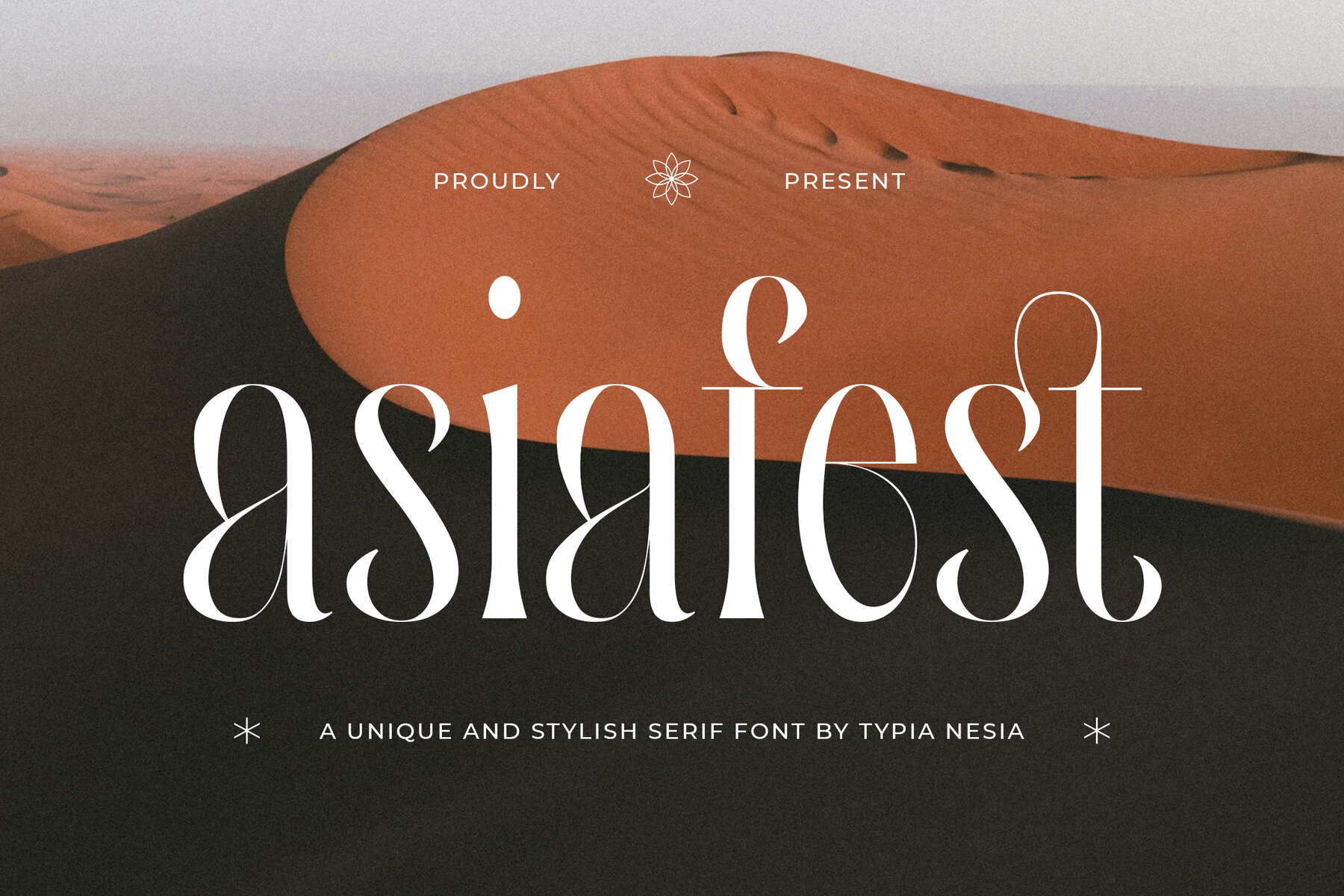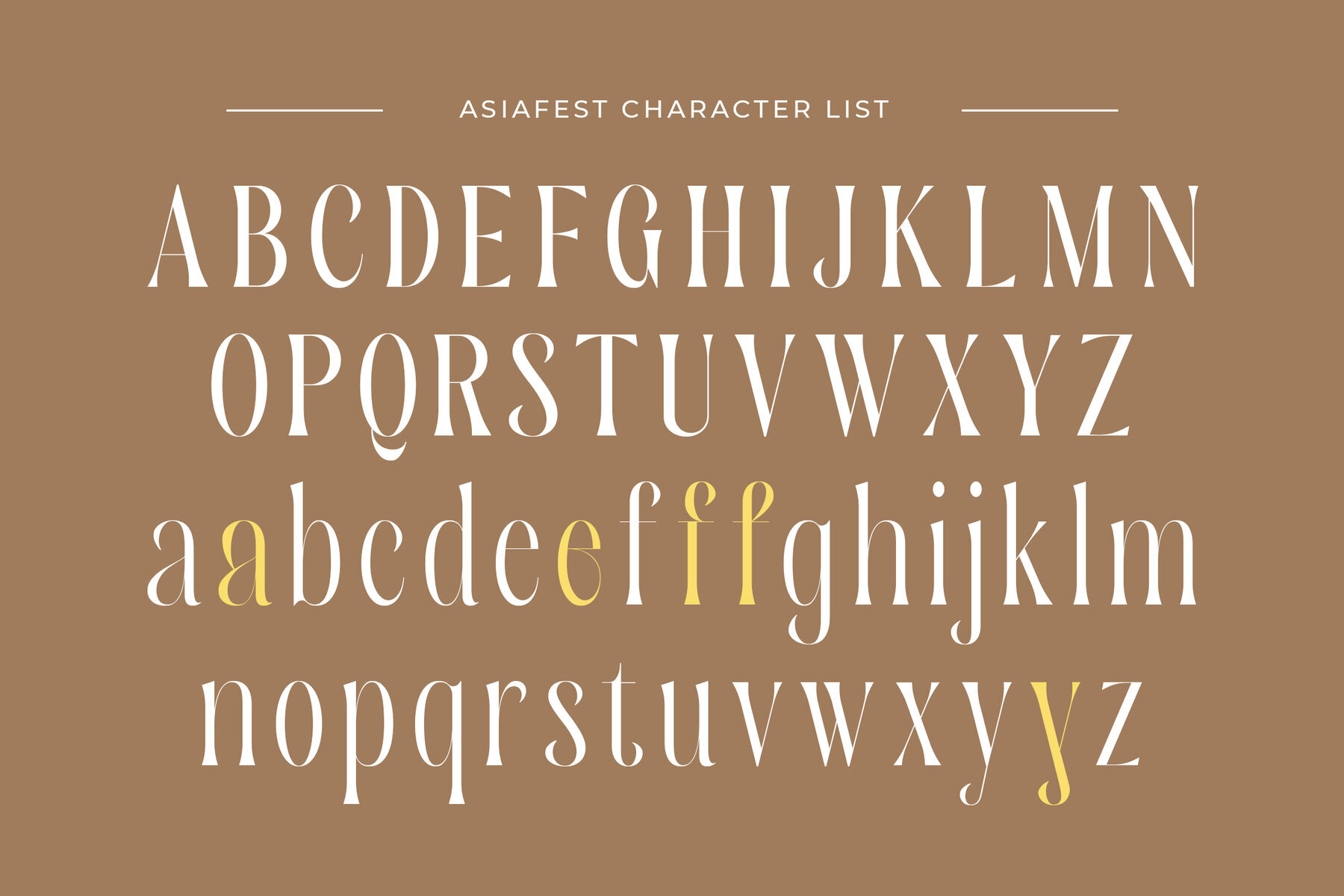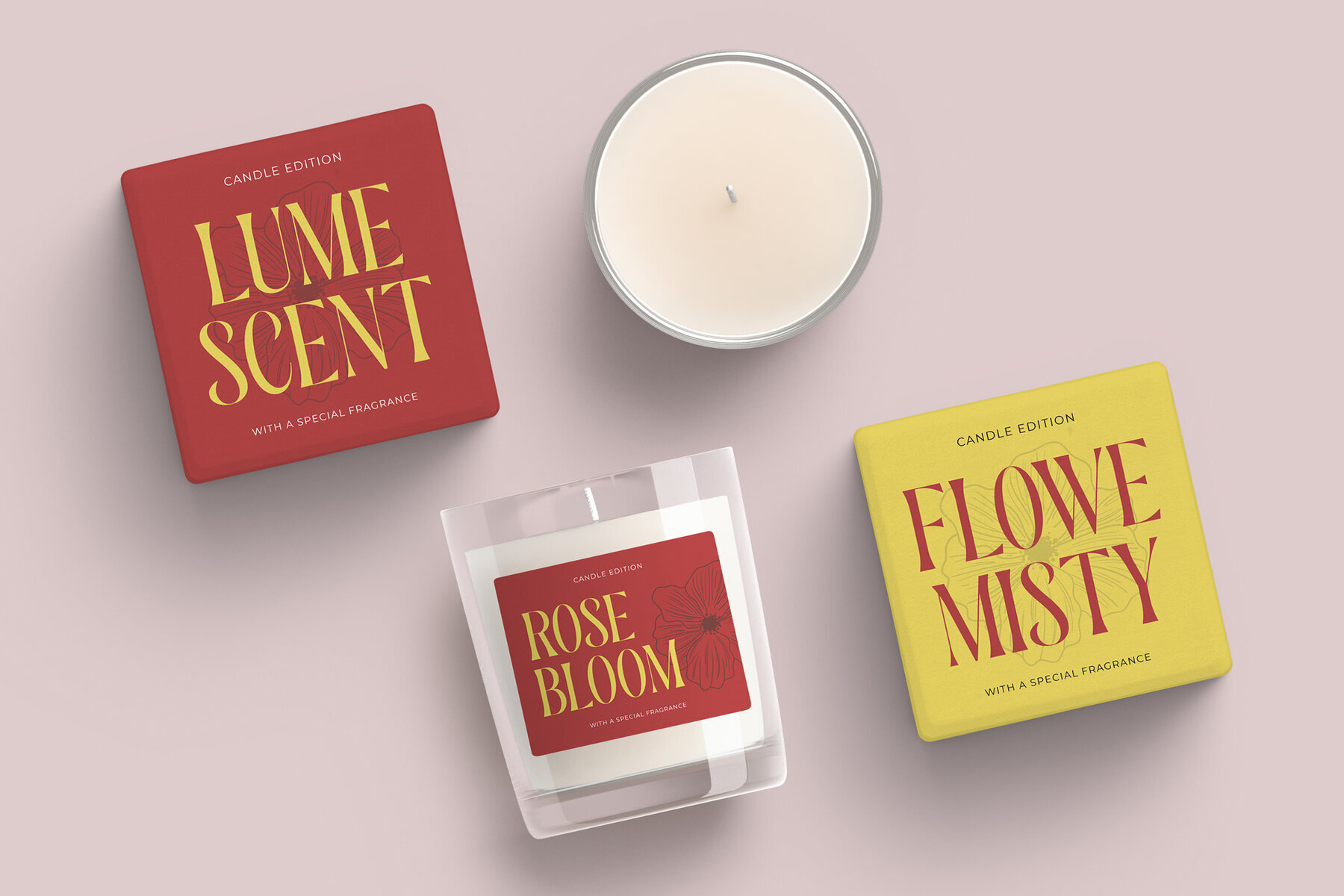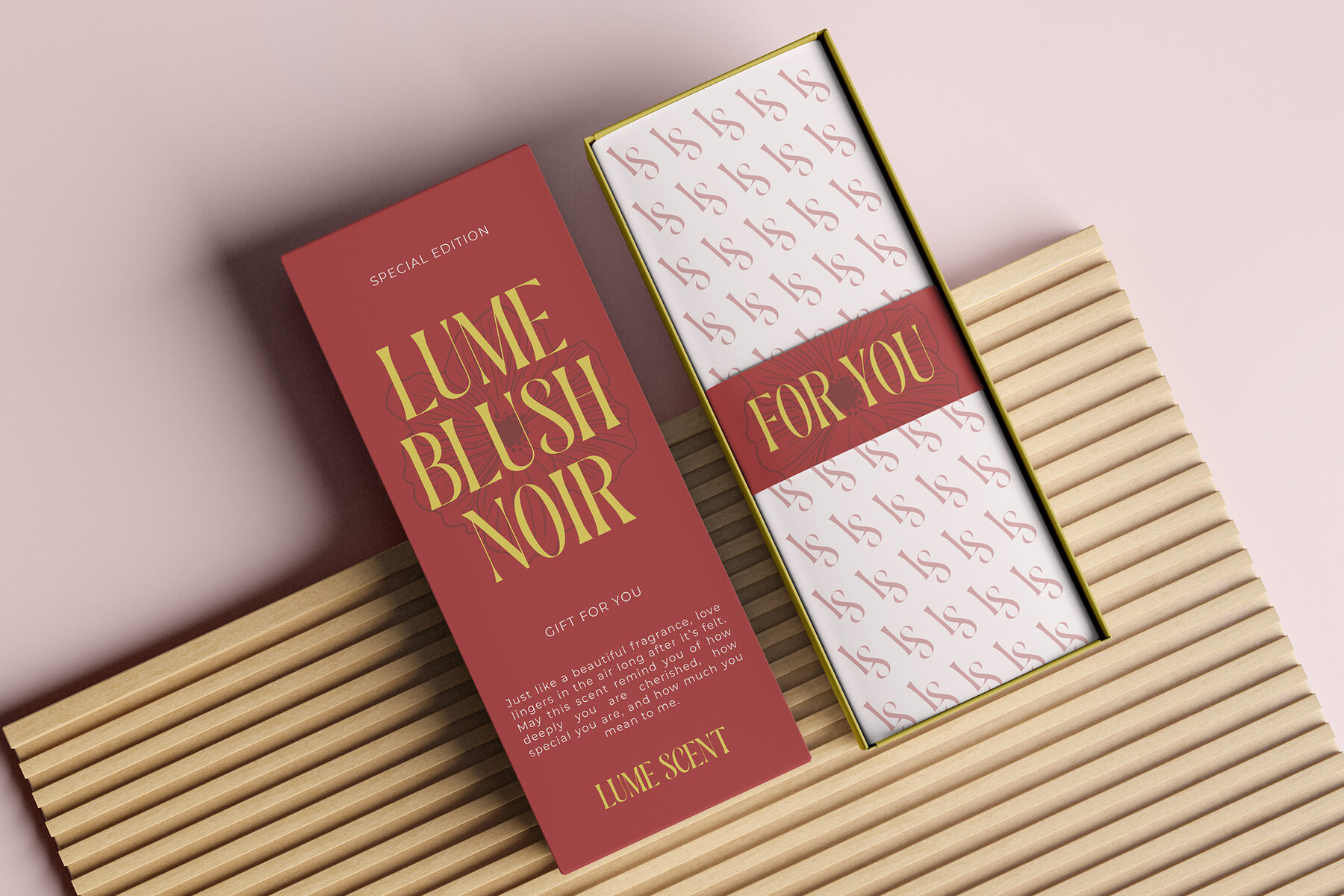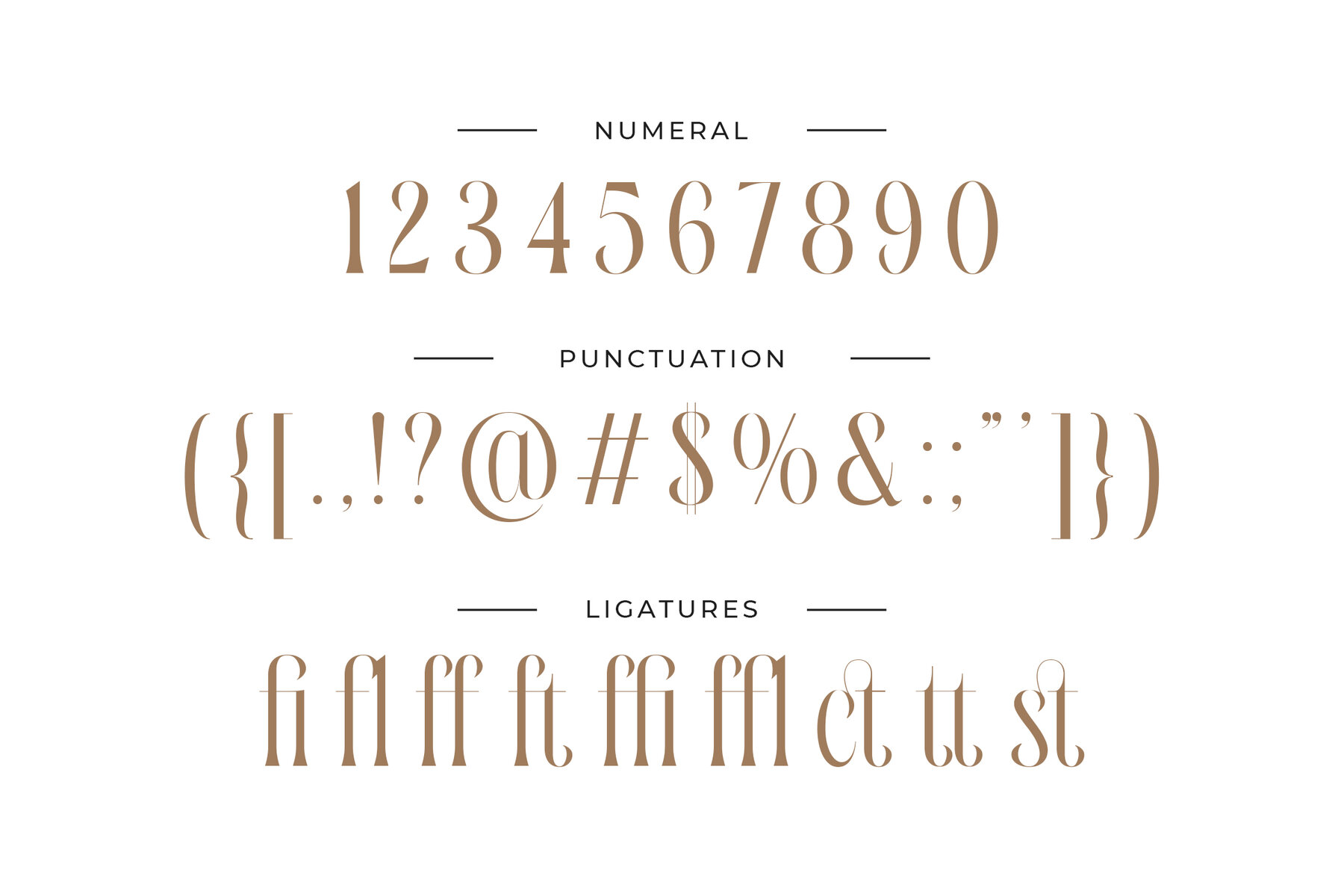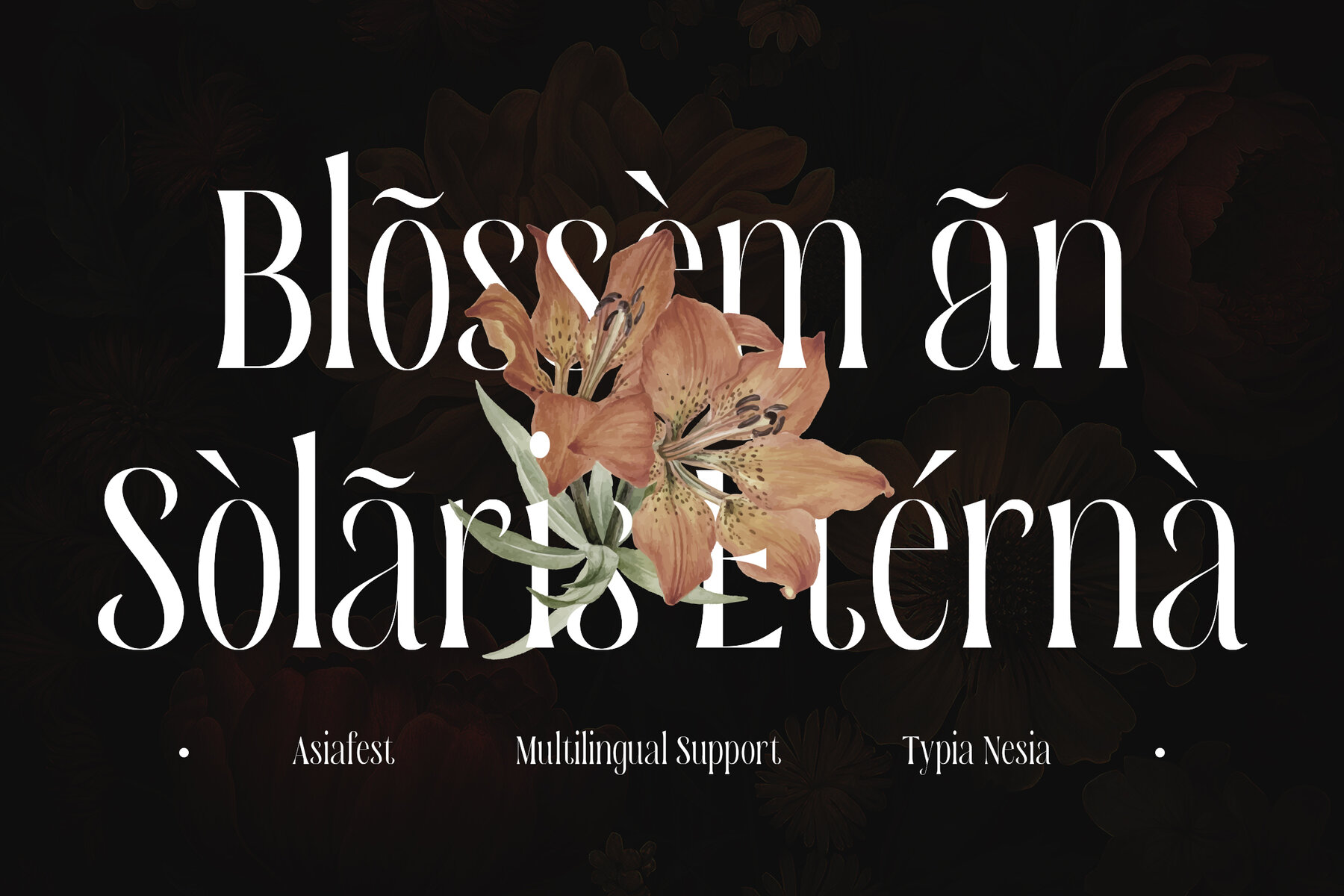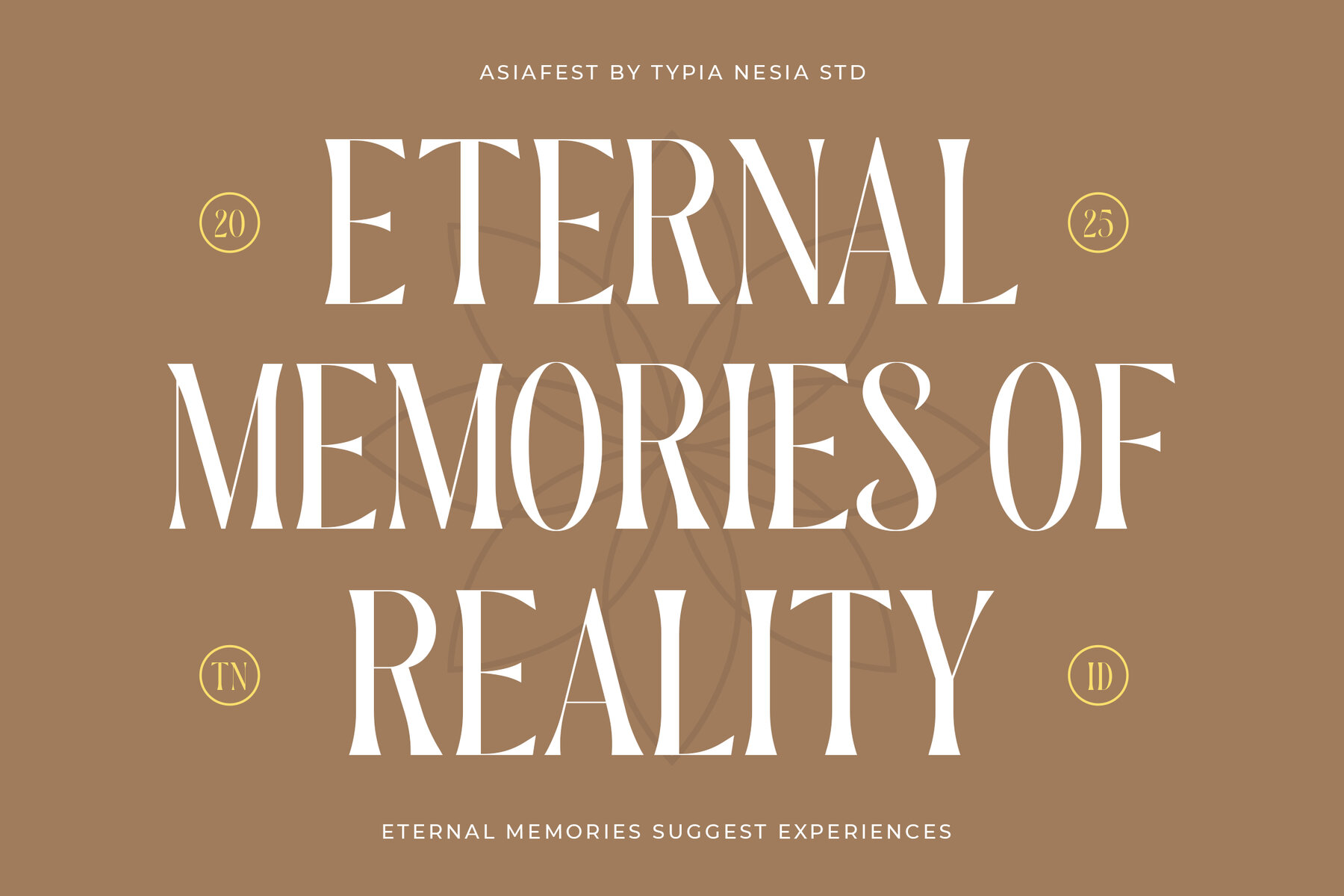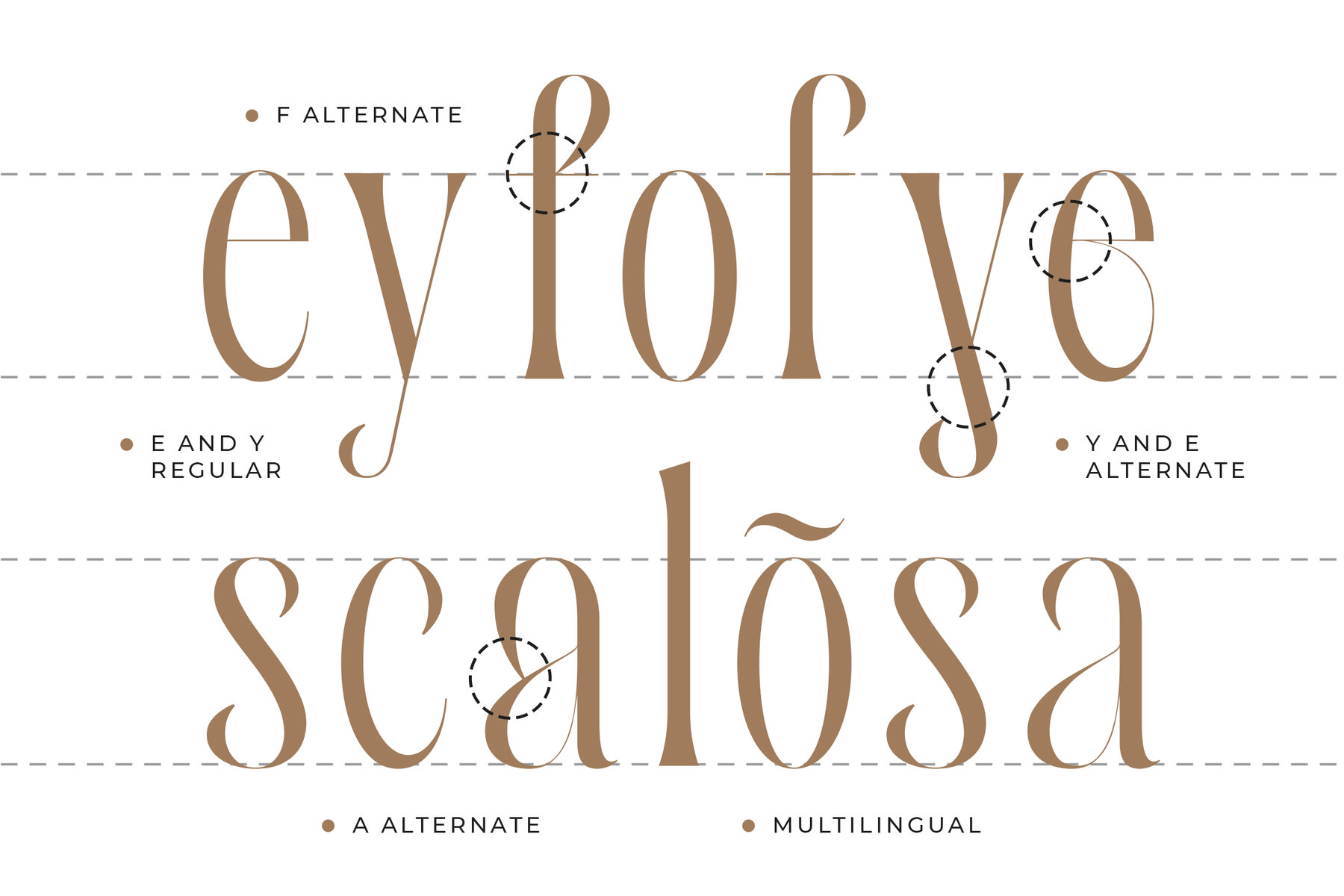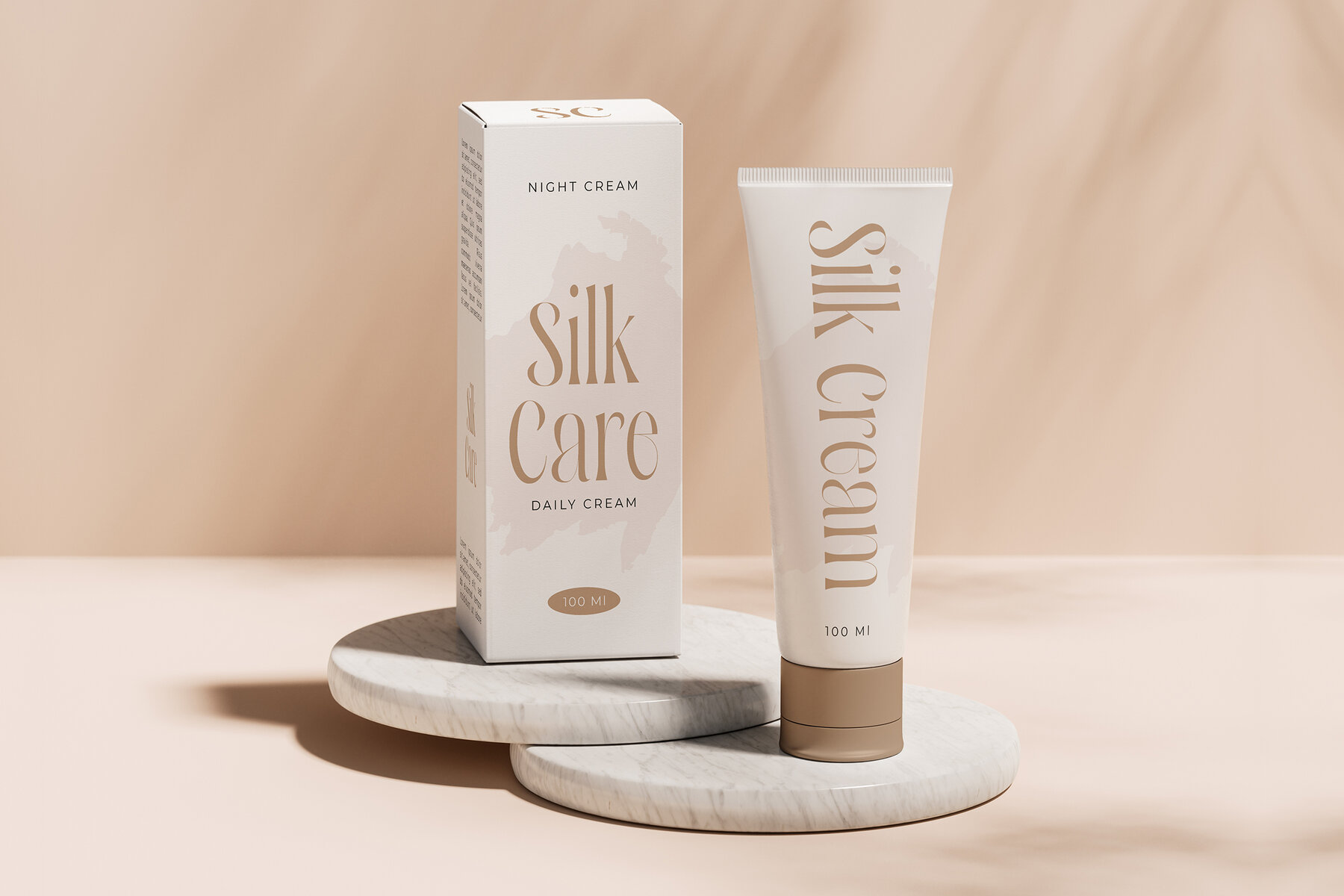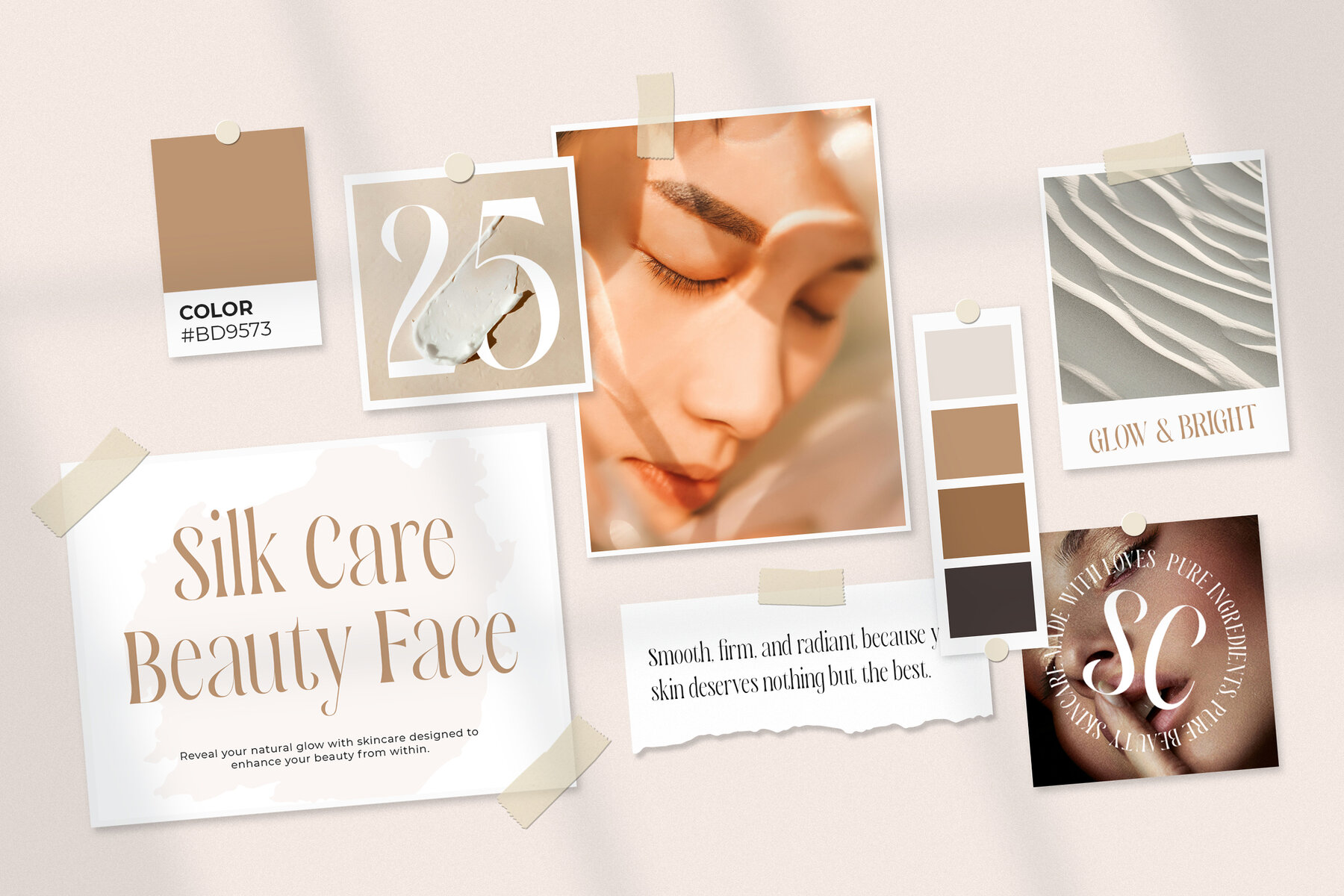
Asiafest Font
Asiafest Regular
Asiafest is a distinctive serif typeface that marries classic elegance with modern flair. Its refined curves and graceful proportions create a sophisticated aesthetic ideal for luxurious visual storytelling. This typeface is a perfect choice for branding, fashion magazines, high-end packaging, logos, wedding invitations, and editorial layouts. Whether you're working on social media graphics or an advertising campaign, Asiafest adds a touch of class and elegance. Designed for designers, art directors, and creatives seeking a refined serif display font, Asiafest delivers both beauty and performance. Download now to infuse your projects with its timeless charm.Asiafest: A Unique Serif Font with Timeless Elegance